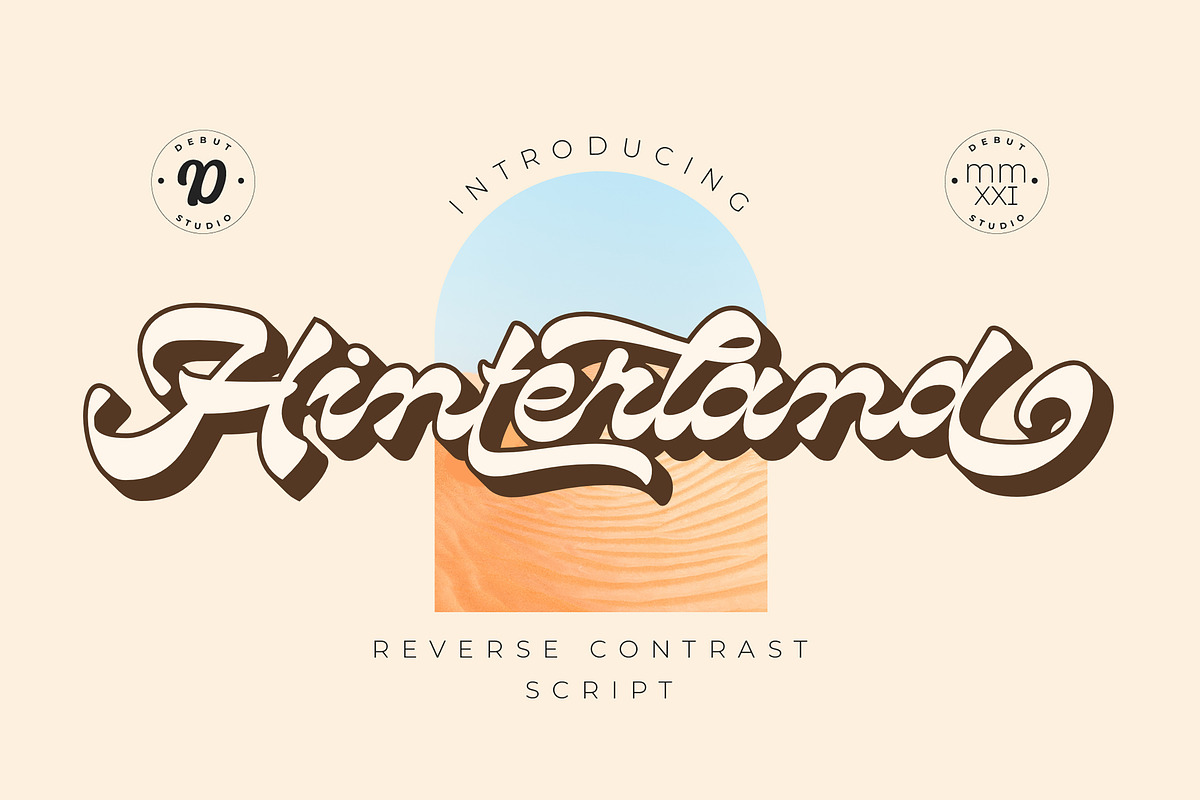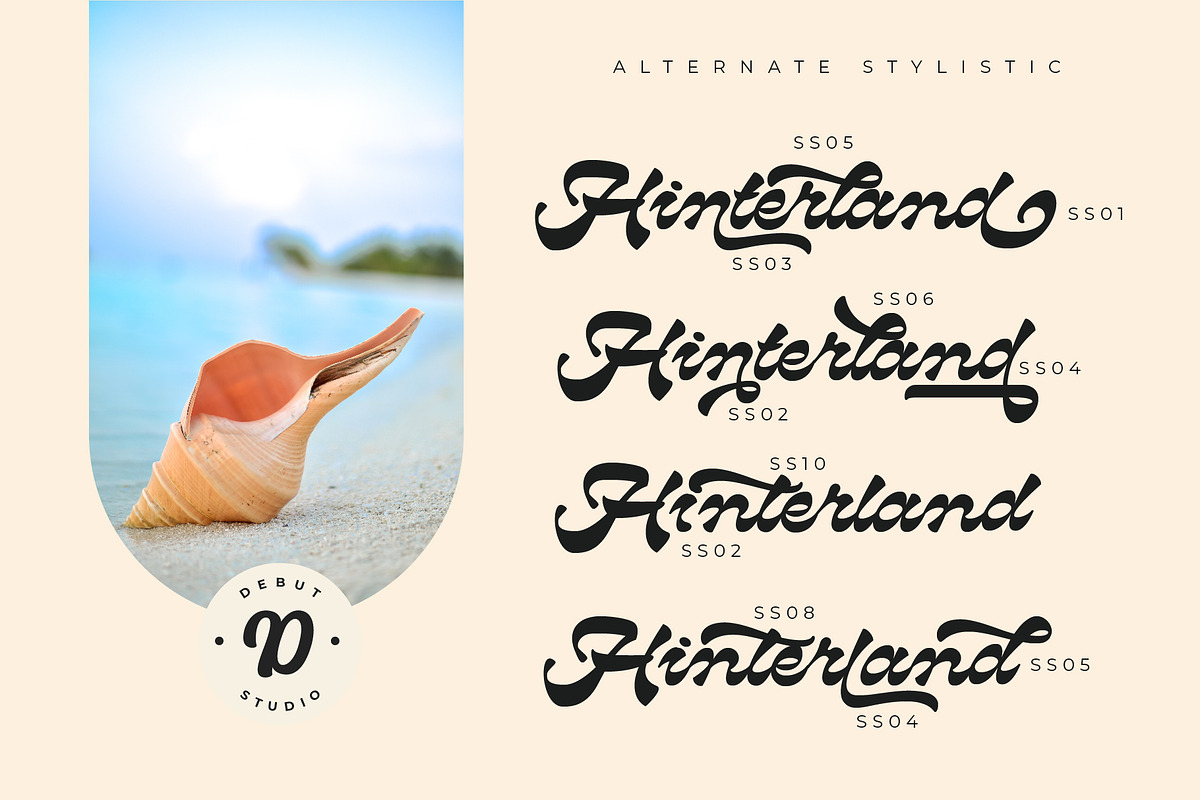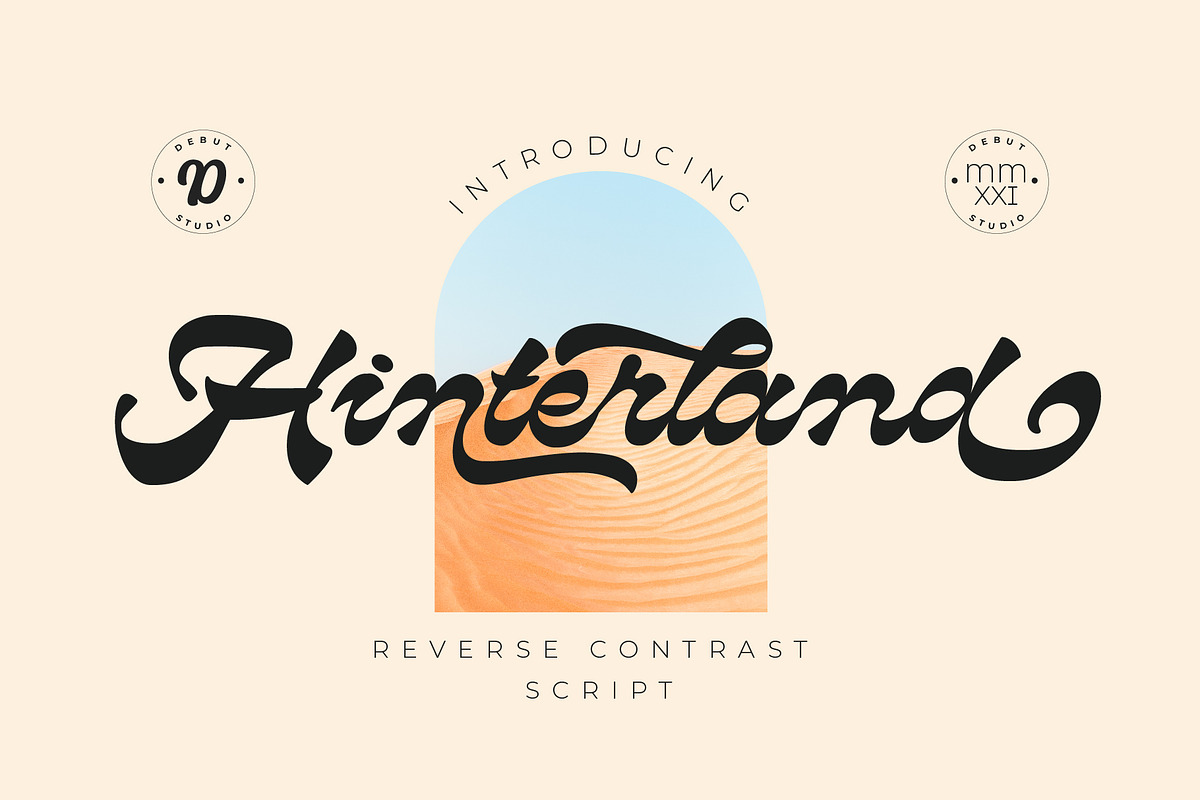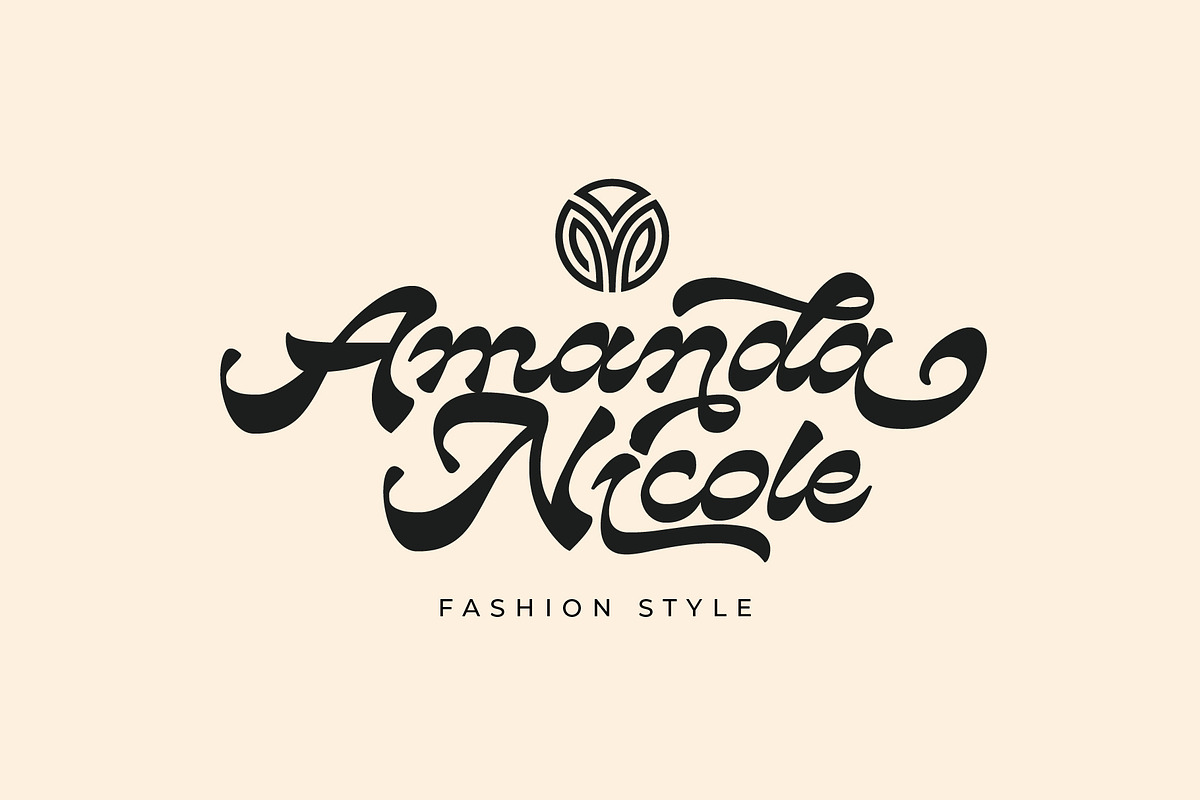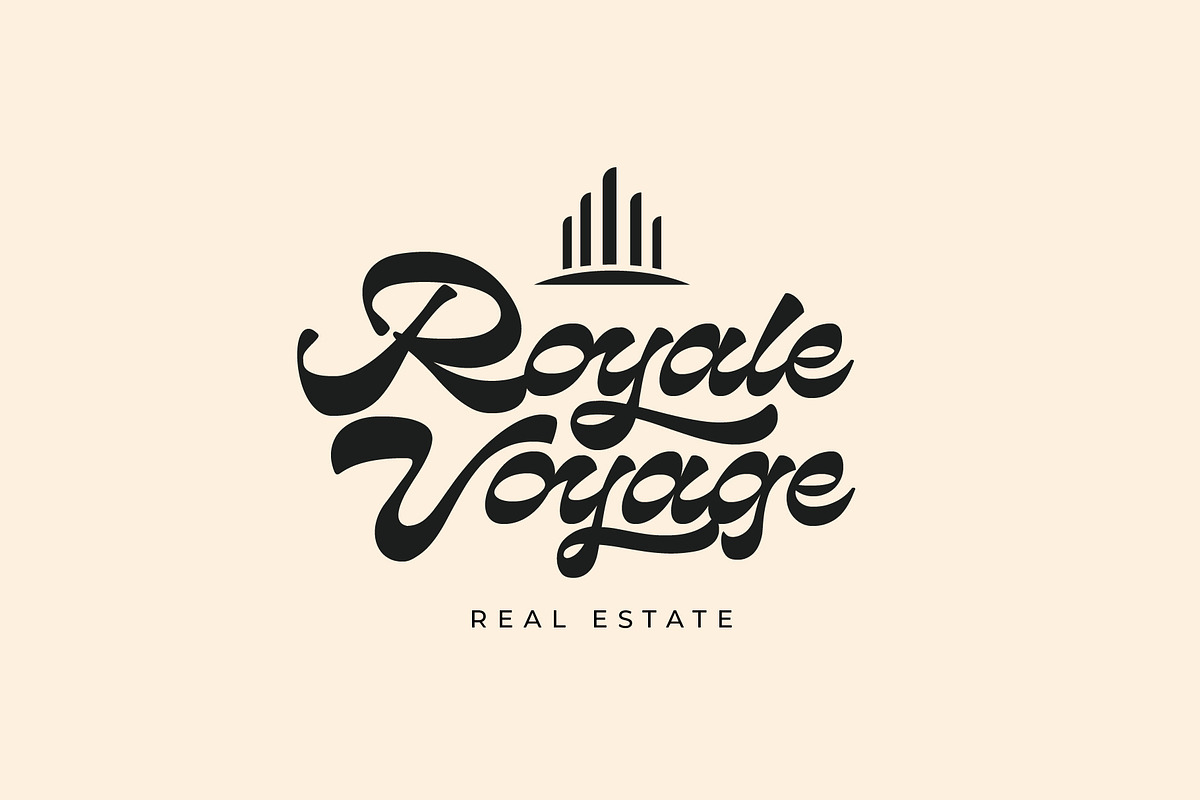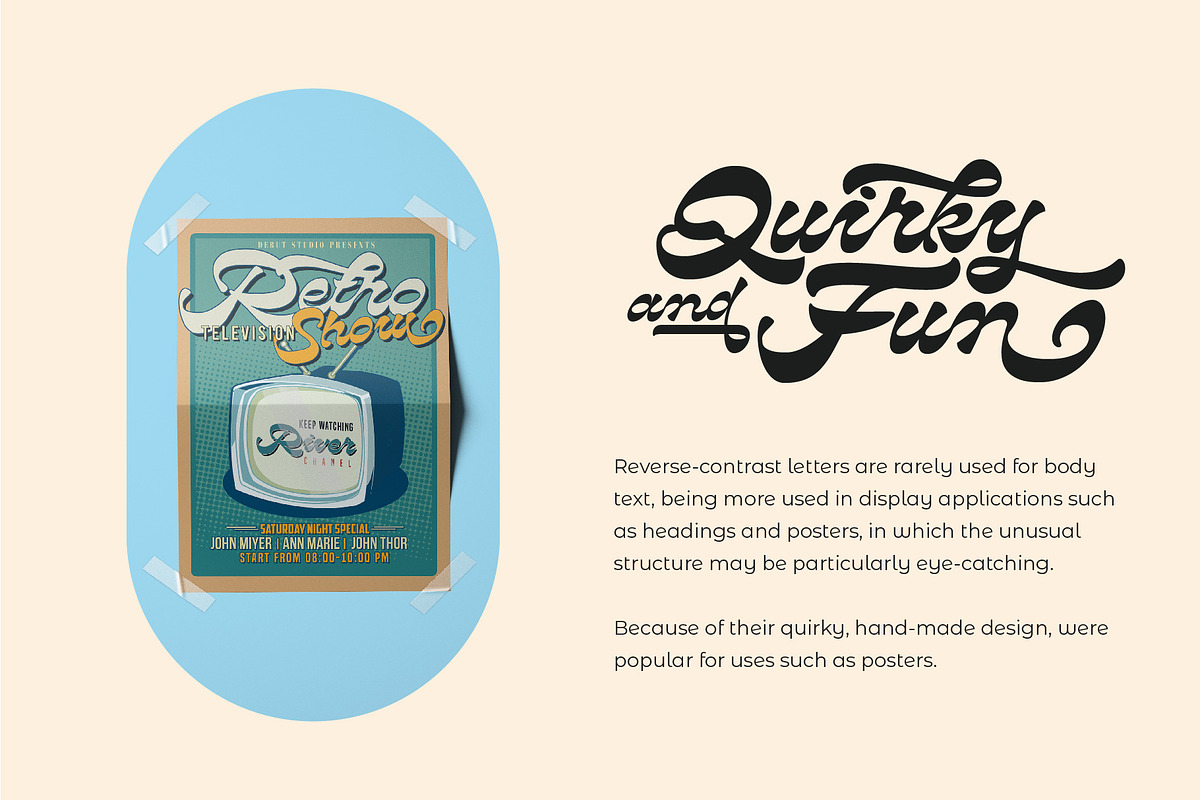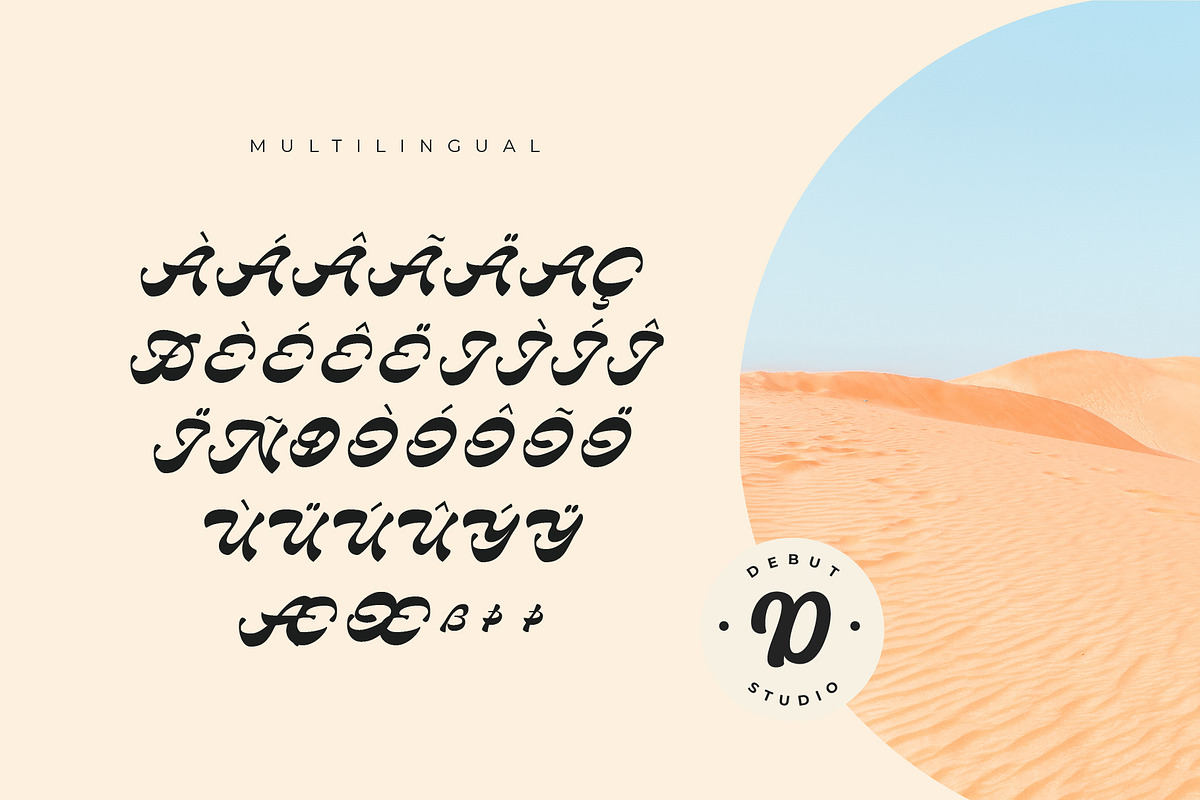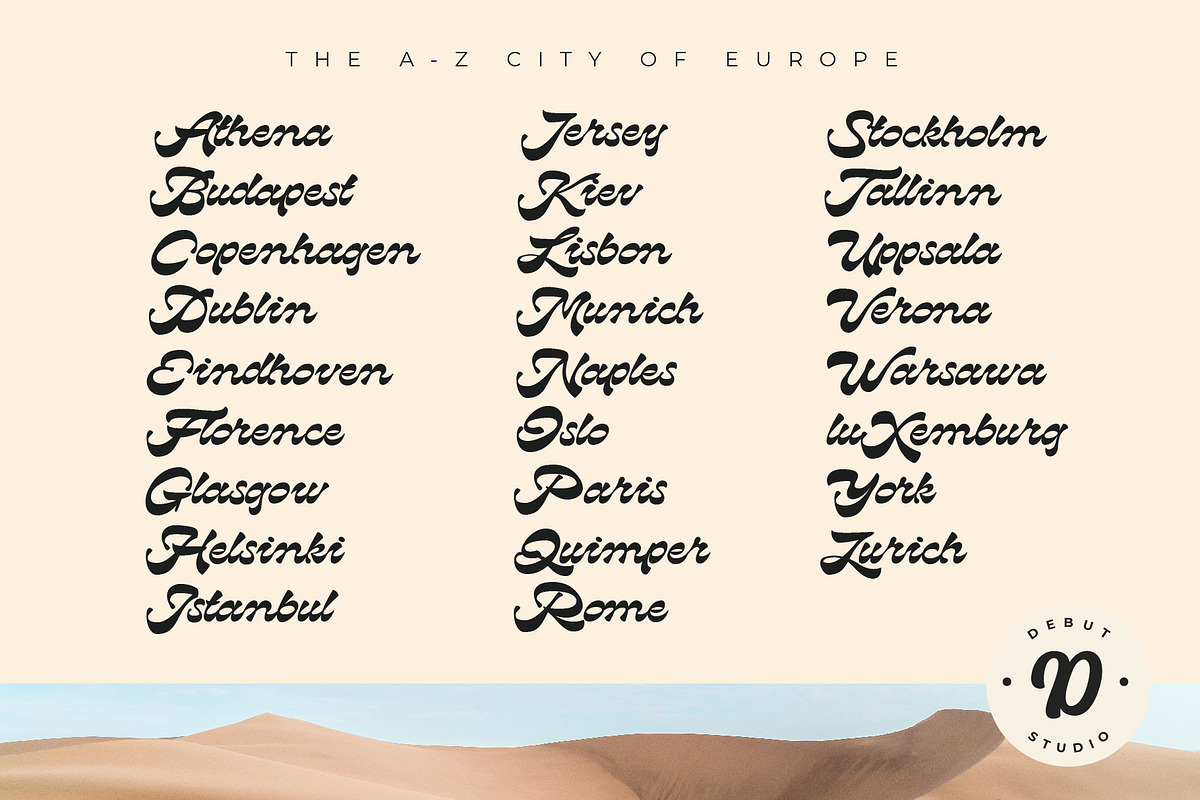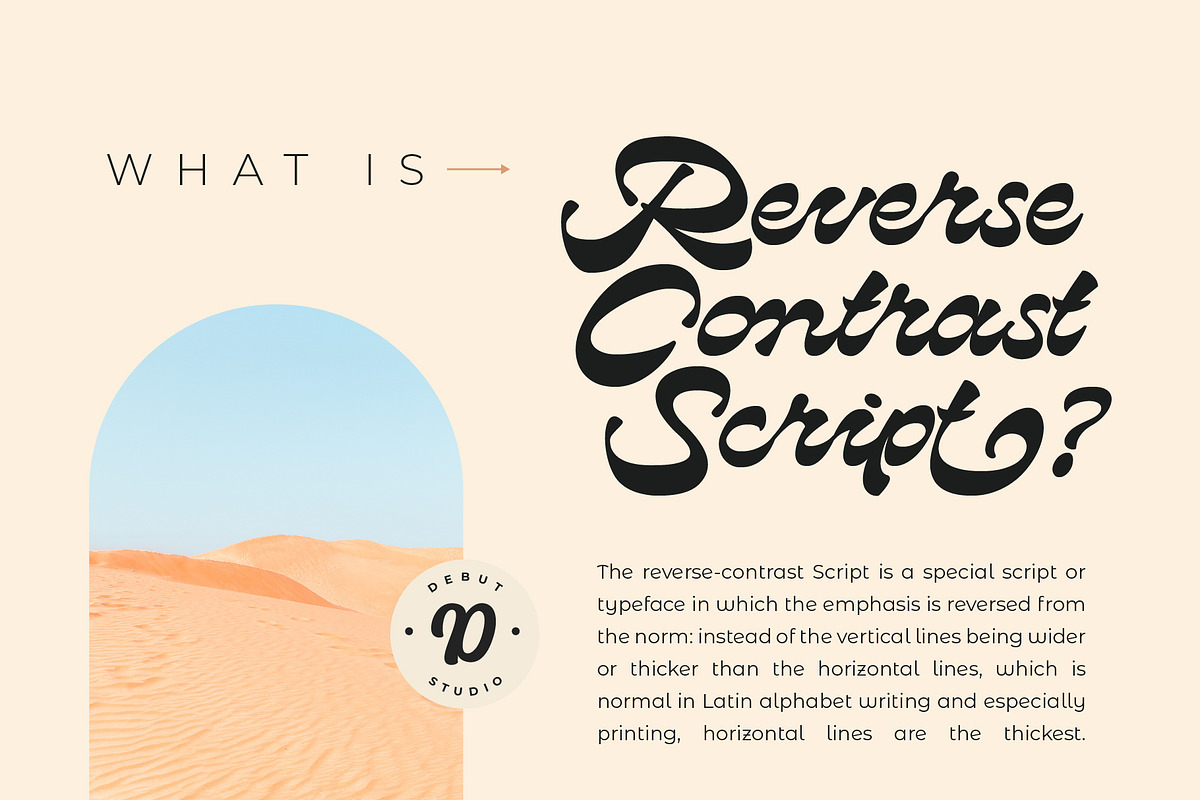
Hinterland | Reverse Contrast Script
Debut Studio Presents the latest script,
HINTERLAND is a REVERSE CONTRAST SCRIPT. This Script is a special script or typeface in which the emphasis is reversed from the norm: instead of the vertical lines being wider or thicker than the horizontal lines, which is normal in Latin alphabet writing and especially printing, horizontal lines are the thickest. It's quirky and fun, you can use for any project.
now available Extrude Version
- Multiple Language & Stylistic Alternate